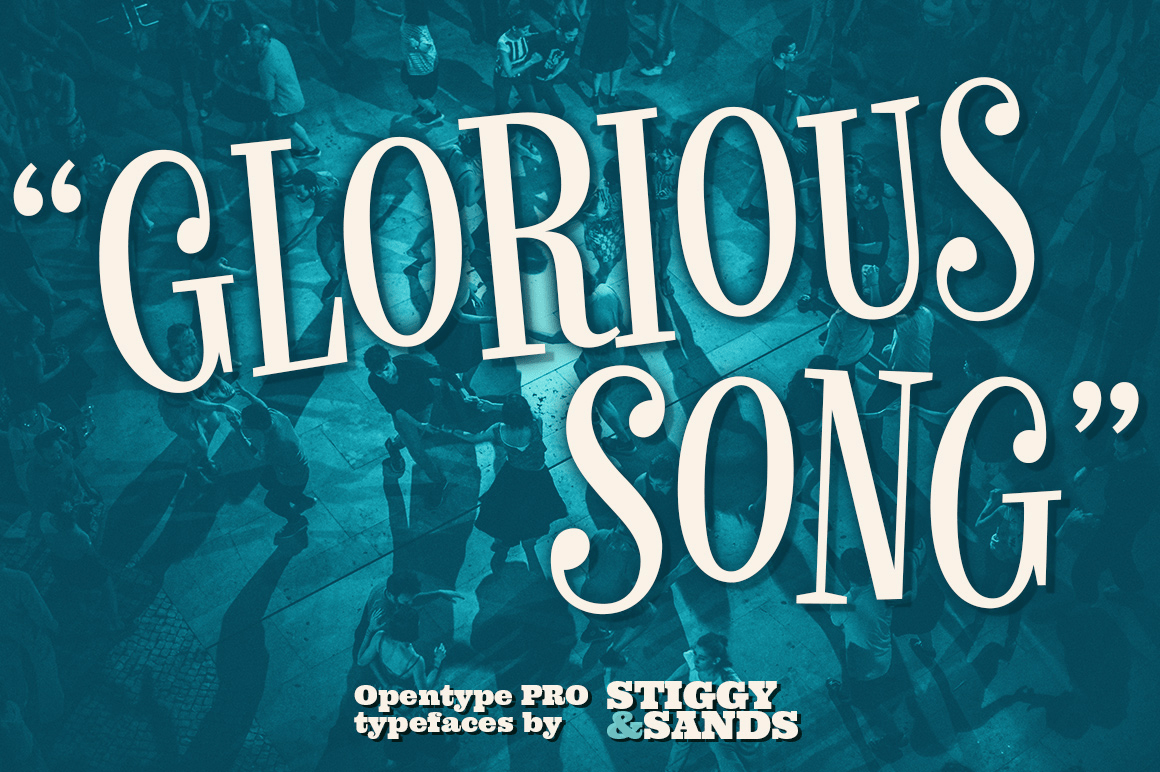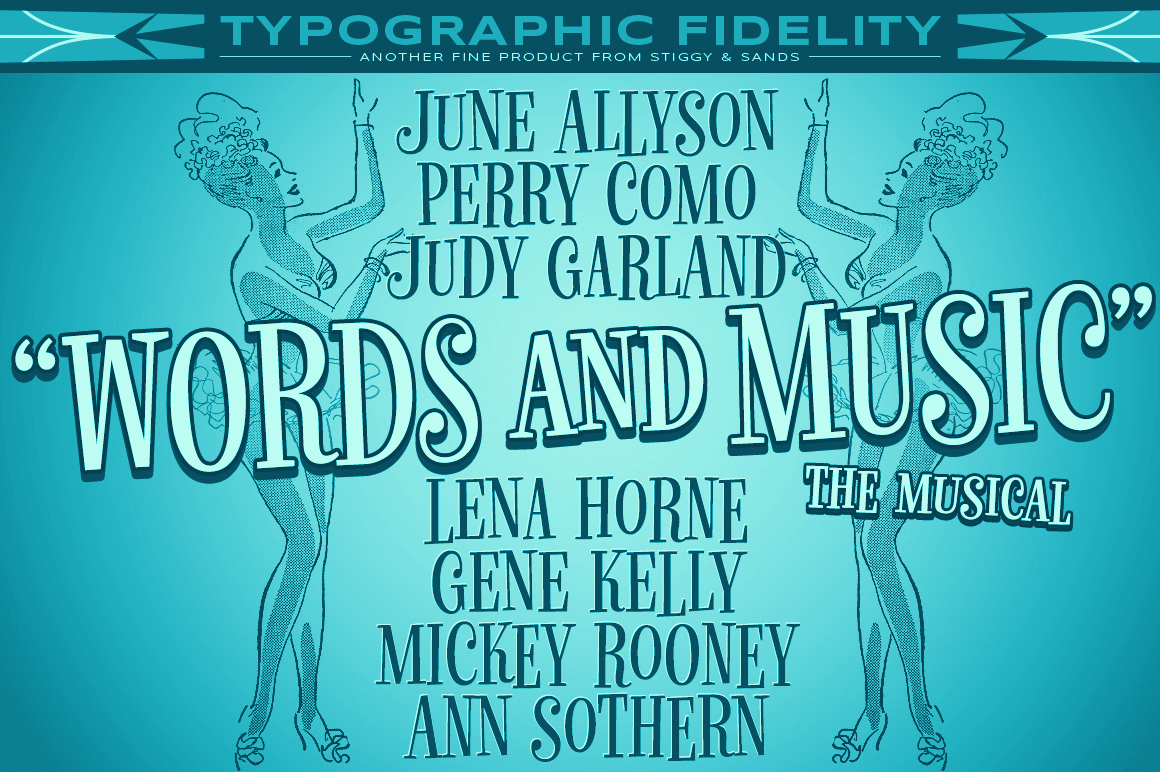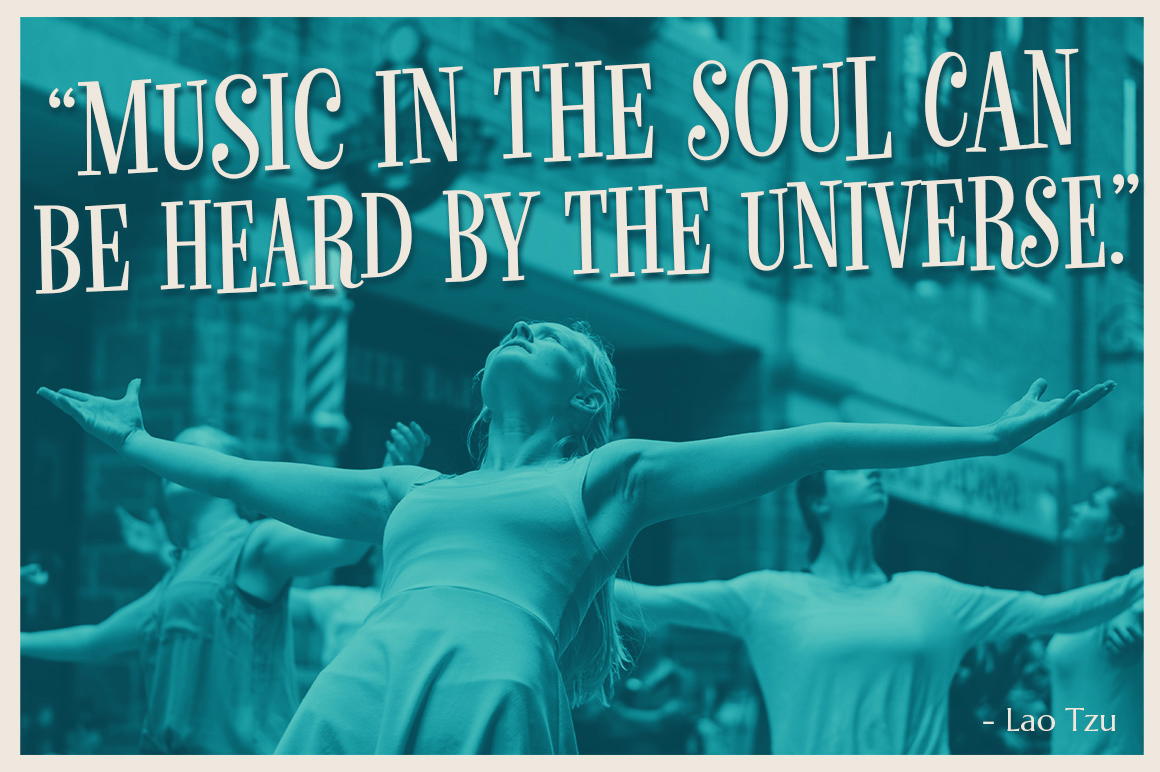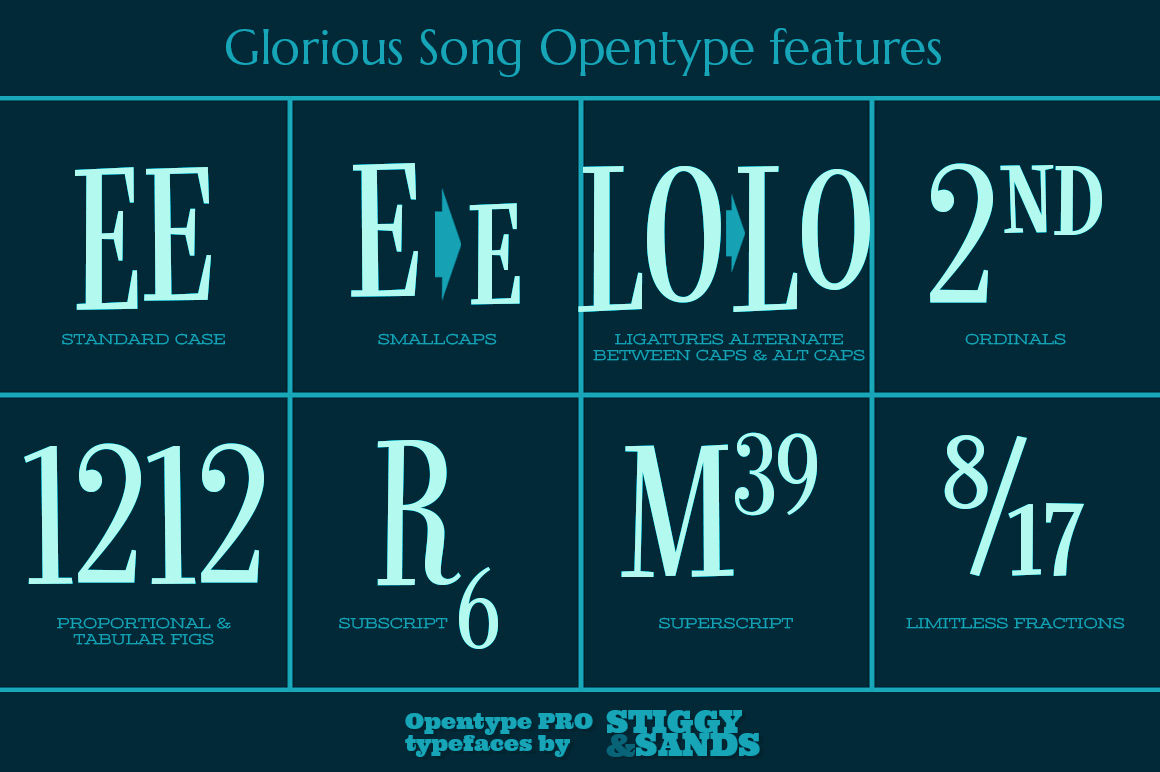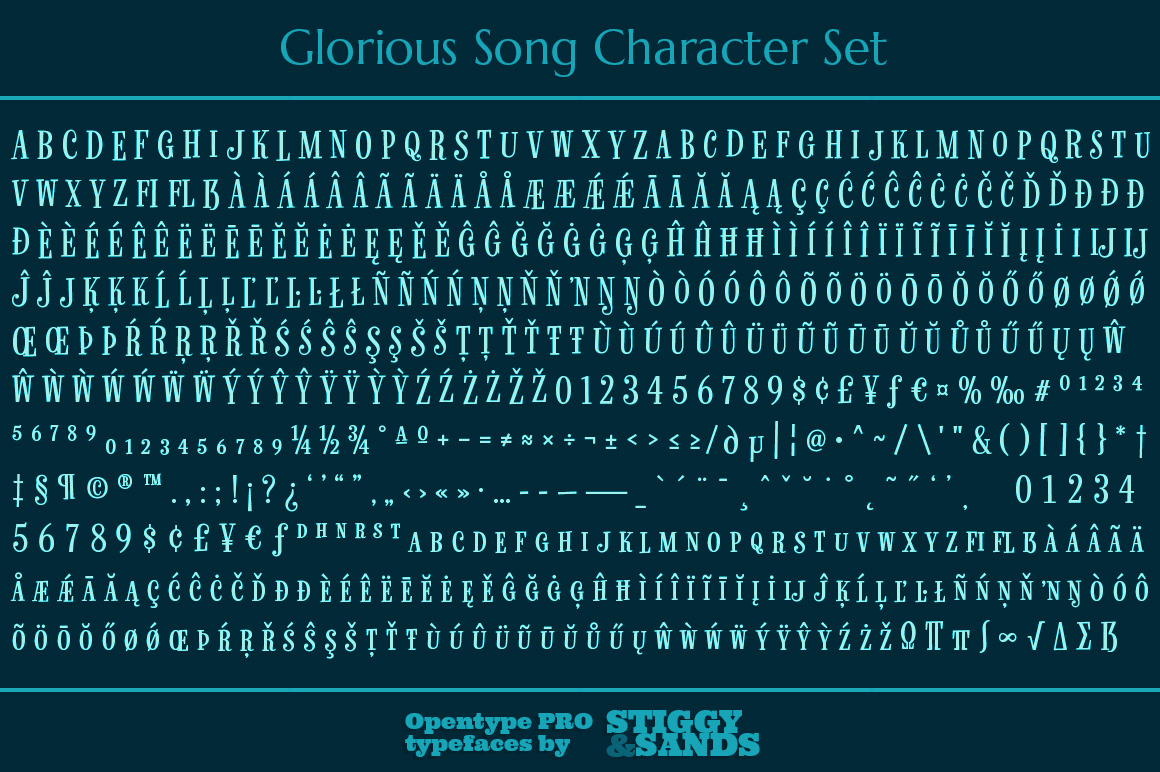
Glorious Song
Glorious Song is a is a display serif typestyle that was inspired by the poster lettering for the 1948 movie "Words and Music". It's an all capitals typeface that has alternate caps in the lowercase slots to convey all of the spunk and visual dance of the original inspiration.
Glorious Song comes with features for customisation options:
? An all capitals typeface with alternate capitals in the lowercase slots
? A Ligatures feature that alternates between Capital and Alt Capitals characters.
? A SmallCaps feature just to mix things up a little.
? A Full set of Inferiors and Superiors for Limitless Fractions
? Tabular and Proportional figure sets
Approx. 546 Character Glyph Set: Glorious Song comes with a glyphset that includes standard & punctuation, international language support, basic ligatures, alternate numeral styles, subscript and superscript, and Small Cap letters.